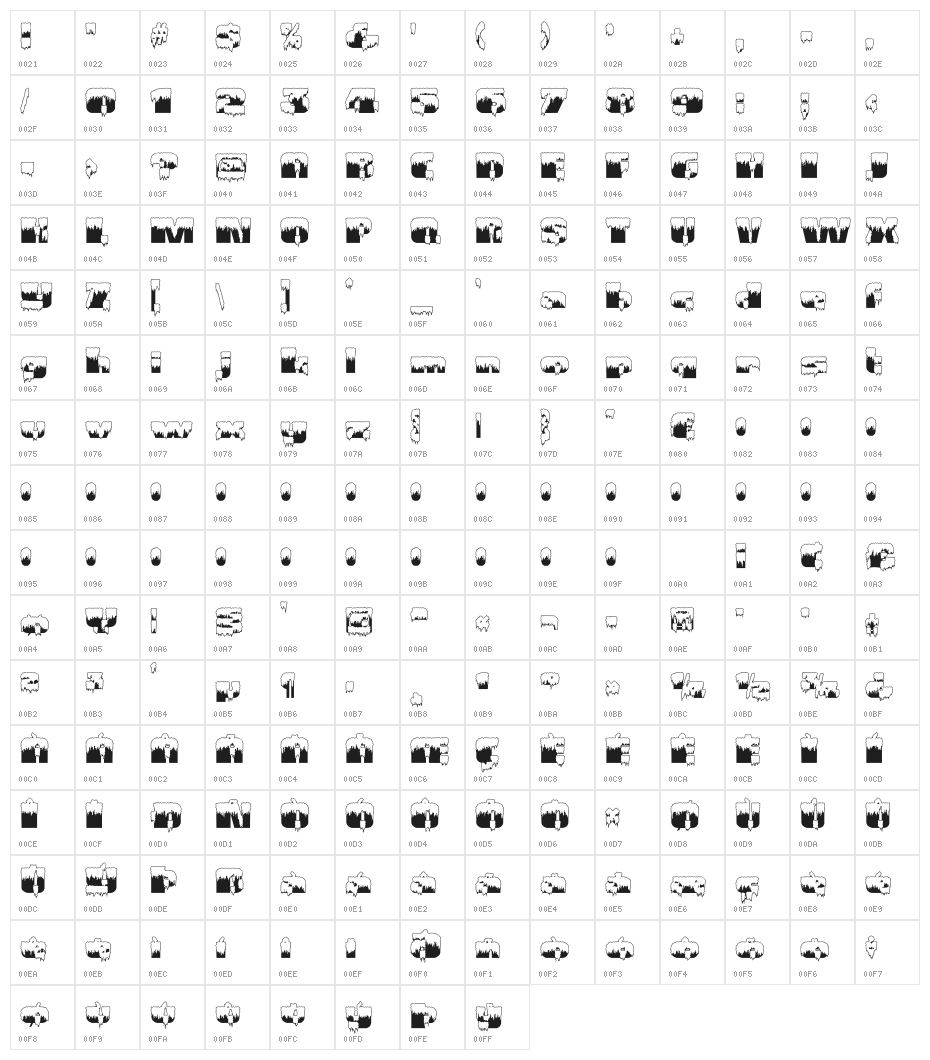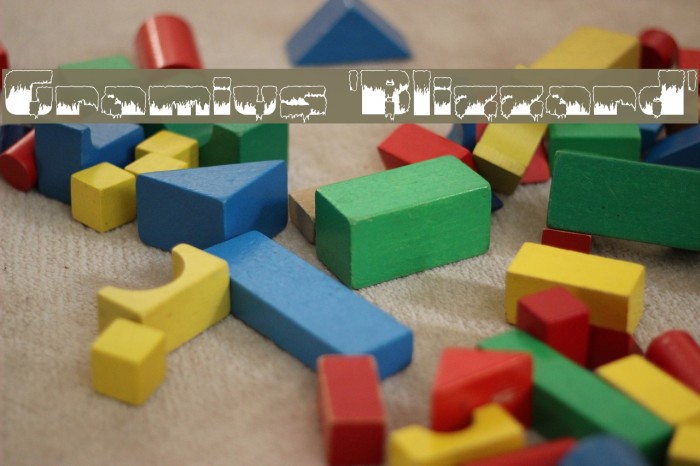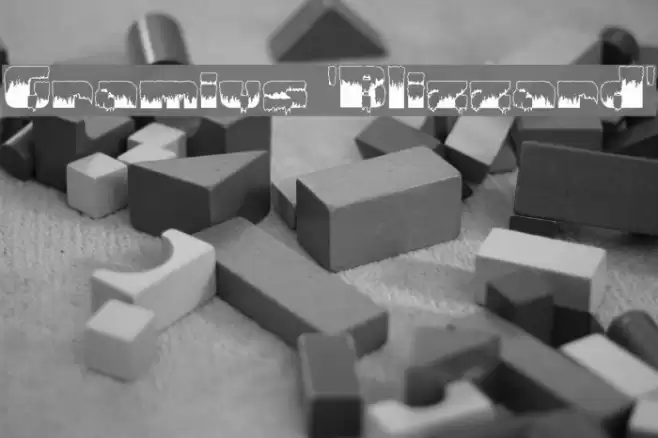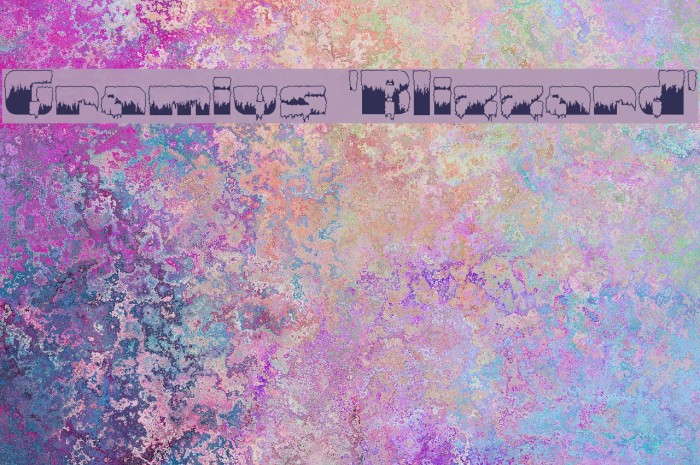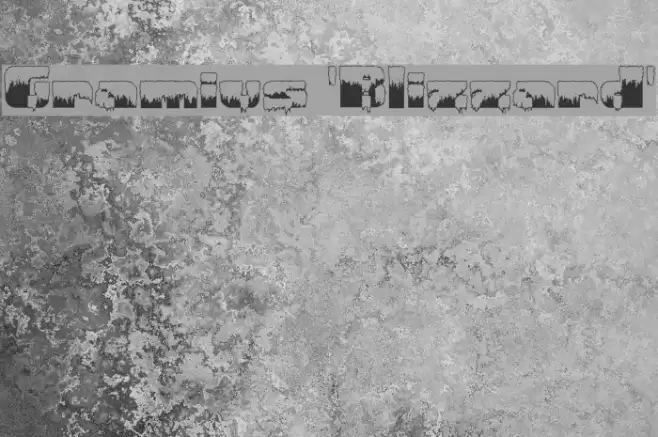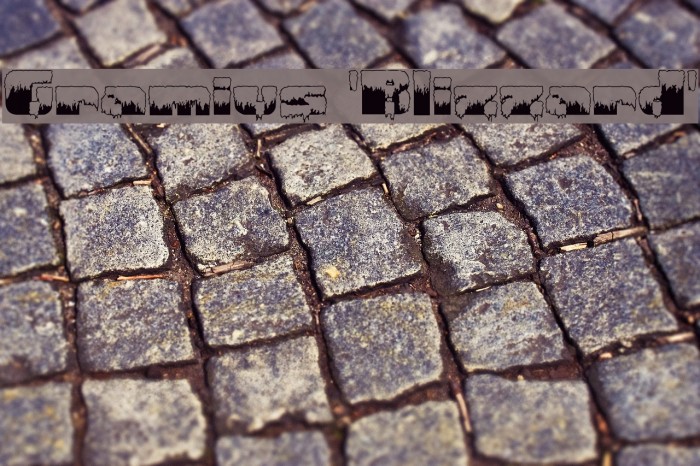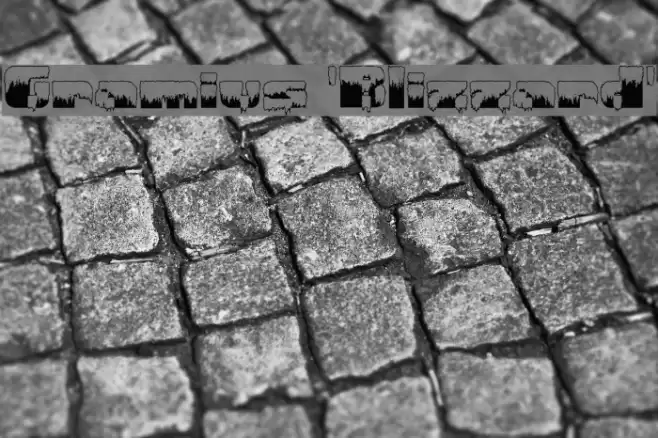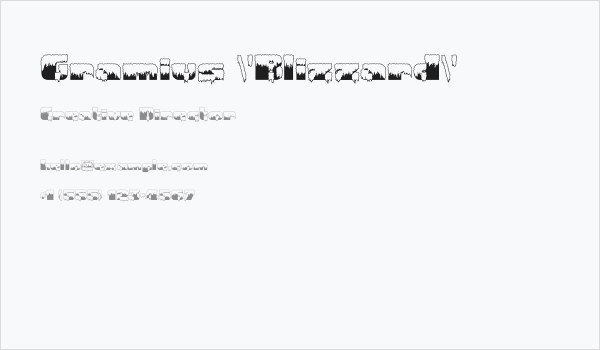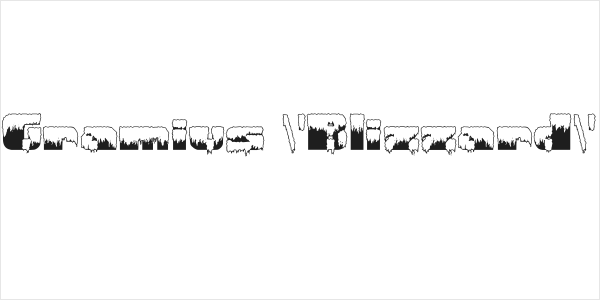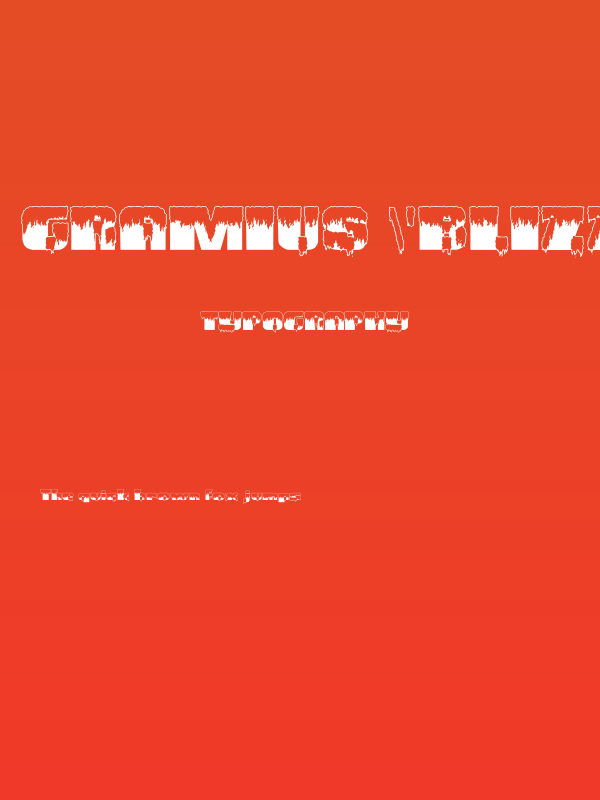
Gramius 'Blizzard' Font
Gramius 'Blizzard' Description
This font features a playful and whimsical design that mimics the appearance of snow or frost accumulating on the tops of the letters. The characters are bold and chunky, with a distinct winter theme that makes them appear as if they are covered in ice or snow drifts. The unique style adds a fun and festive touch, perfect for seasonal projects. The uppercase and lowercase letters maintain a consistent snowy effect, while the numbers and special characters also follow this frosty theme. The overall look is both eye-catching and thematic, making it ideal for creative and decorative uses.
Proposed ProjectsIdeal for holiday cards, winter festival posters, seasonal advertisements, and children's book covers.